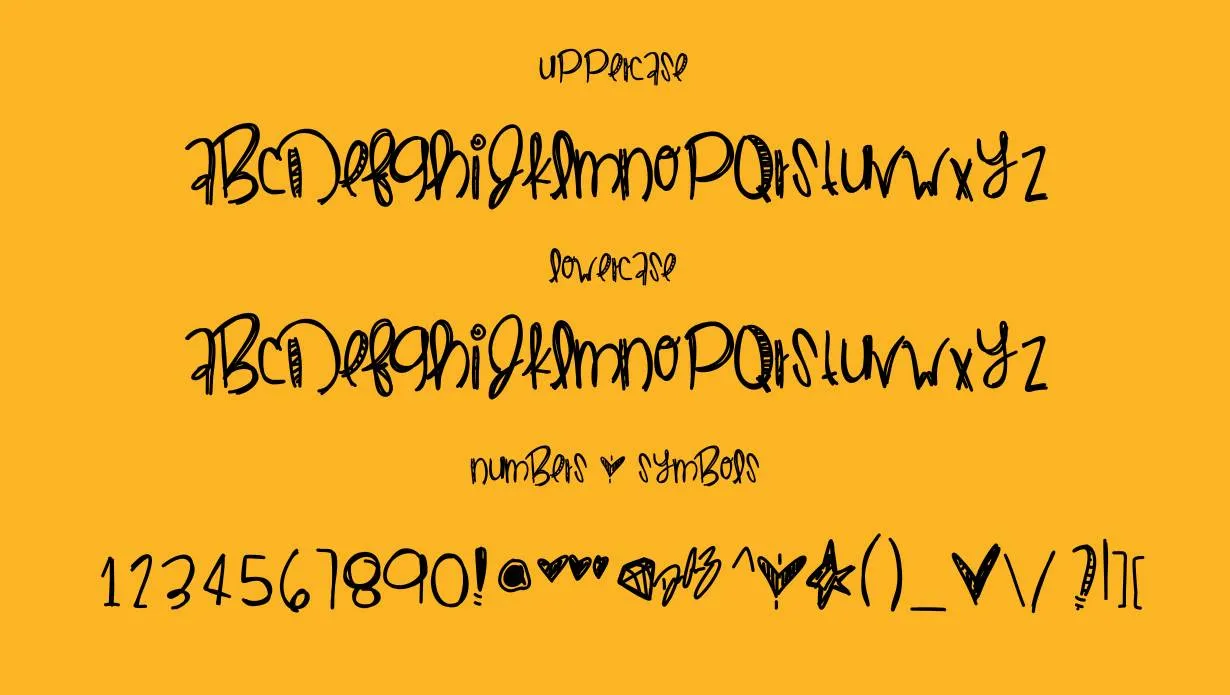
The Dirty Pop Font is a lively and energetic choice, capturing the beat of a catchy pop song. Its vibrant characters add a touch of fun to graphics in Adobe Photoshop, bring a lively vibe to web design with CSS, or infuse a sense of excitement into documents in MS Word.
| Name | Dirty Pop Font |
| Designer | Neville Brody |
This font effortlessly adds a pop of energy, making your designs as catchy as your favorite pop tunes.